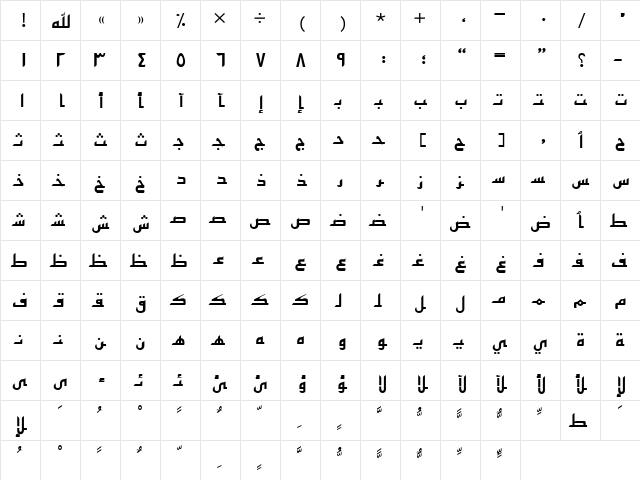
ArabicSans Regular
Design Context for ArabicSans Typeface
ArabicSans offers clean, dependable letterforms without strong stylistic allegiance, making it a practical choice for designers who need flexibility.